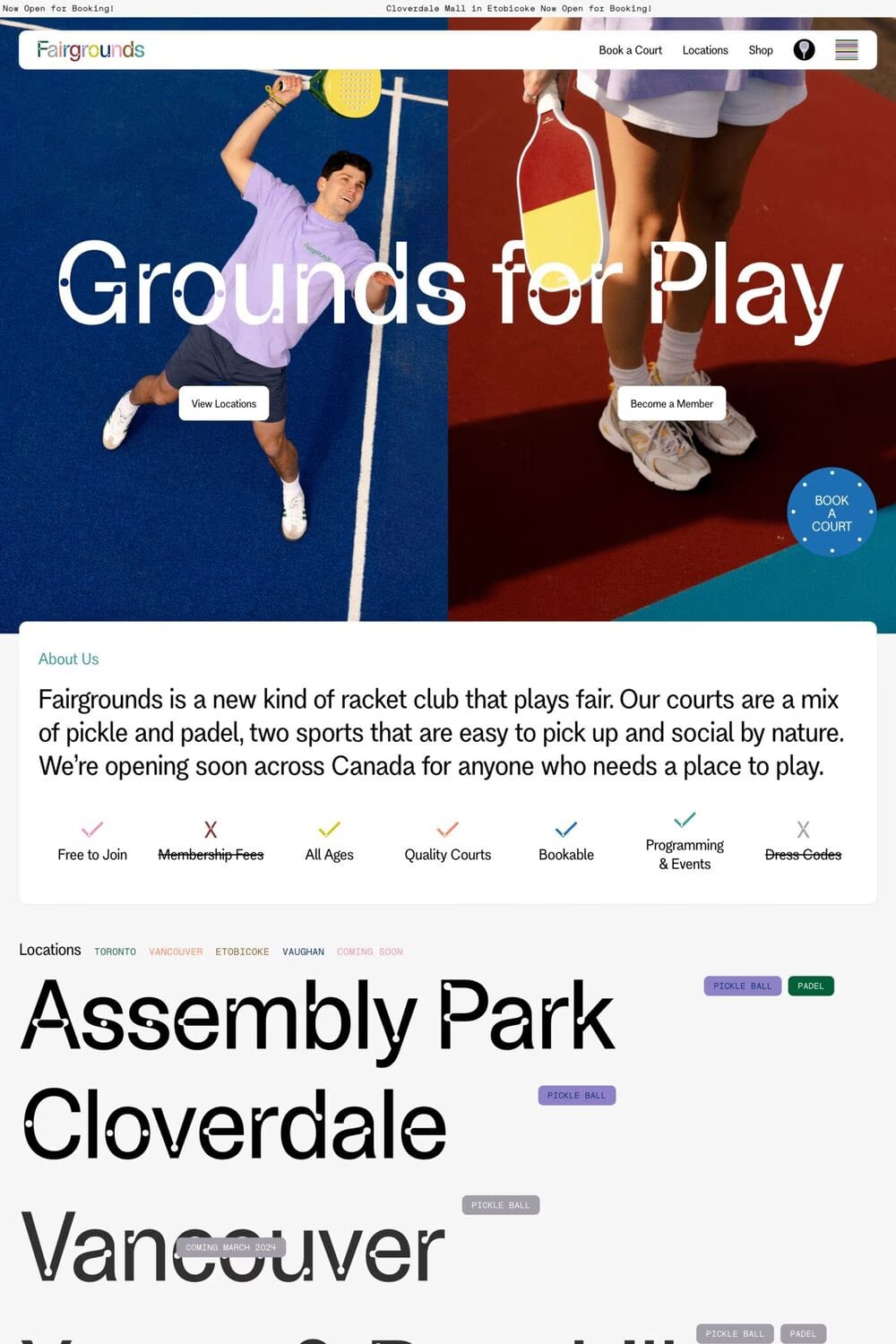
Camera is a sans-serif typeface from Dinamo.
ABC Camera is a reinterpretation of light traps, which were originally used in the 60s and 70s to make text more readable on TV screens. Similar in logic to ink traps, light traps compensated for low resolution: When the font appeared, the screen’s blur filled in its holes so that each letter looked complete.